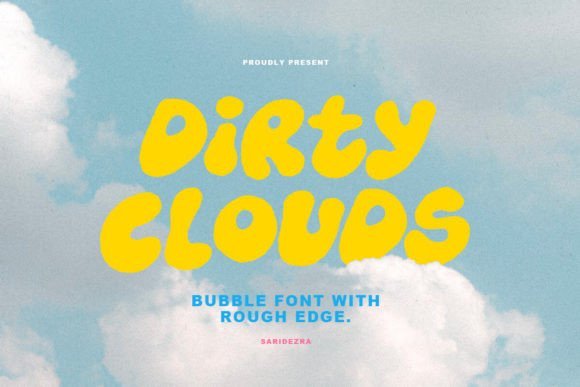
Get Ready to Add a Touch of Whimsy to Your Designs
There’s nothing quite like the feeling of discovering a new font that speaks to your creative soul. Maybe you’re brainstorming ideas for a poster, or perhaps you’re working on a branding project that needs a unique touch. Whatever the case, we’re excited to introduce you to Dirty Clouds Font – a hand-drawn bubble font that’s sure to bring a smile to your face.
With its organic look and rough edges, Dirty Clouds Font is the perfect choice for designers who want to add a human touch to their projects. Whether you’re working on a poster, sticker, or quote, this versatile font is sure to make your design pop. And with its extensive range of alternates, icons, and underlines, you’ll have endless possibilities at your fingertips.
Dirty Clouds Font Key Features
- Unique Characteristics: Dirty Clouds Font features a distressed, grungy aesthetic with irregular shapes and textures, giving it a unique and eye-catching appearance.
Dirty Clouds Font Review
Overall, I found the Dirty Clouds Font to be a unique and interesting choice for designers looking to add a bit of whimsy to their projects. ✨
- The font’s distressed, vintage aesthetic is perfect for creating a retro or grungy vibe in designs.
- The Dirty Clouds Font is highly customizable, allowing designers to easily adjust the font’s color, size, and spacing to suit their needs.
- The font’s irregular, hand-drawn feel adds a touch of personality to designs and helps to break up the monotony of more traditional fonts.
While the Dirty Clouds Font is a great choice for some projects, it may not be the best fit for others. ⚠️
- The font’s irregularities can sometimes make it difficult to read, especially for large blocks of text.
- The font’s distressed aesthetic may not be suitable for more formal or professional designs.
In conclusion, the Dirty Clouds Font is a fun and unique choice for designers looking to add a bit of personality to their projects. While it may not be the best fit for every project, it’s definitely worth considering for designs that call for a more whimsical or retro vibe.
Tips for Getting the Most Out of “Dirty Clouds Font”
Combine the “Dirty Clouds Font” with other creative elements, such as textures or illustrations.
Use the font to add visual interest to headings and titles.